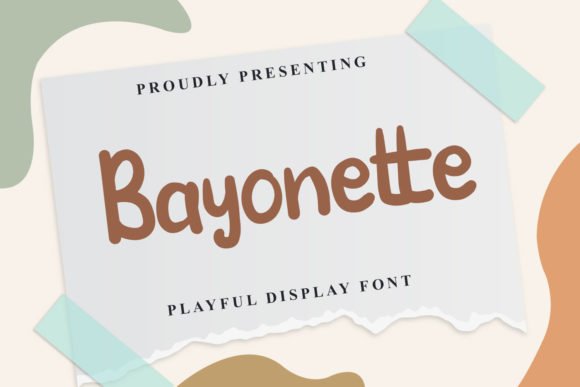
The Perfect Script: Discover the Magic of Bayonette Font
Enter Bayonette Font, a beautiful, flowing handwritten font that’s perfect for adding a touch of whimsy to your designs. With its adaptable nature, it’s sure to look great on a variety of projects, from social media graphics to wedding invitations. Whether you’re a seasoned designer or just starting out, Bayonette Font is a valuable addition to your toolkit.
What makes Bayonette Font truly special is its ability to add a friendly, approachable feel to any project. It’s the perfect choice for designers who want to create a sense of warmth and connection with their audience.
- Unique Characteristics: Bayonette Font features a unique blend of geometric and script elements, giving it a distinctive and stylish look.
Bayonette Font Review
Overall, I think the Bayonette font is a great addition to any designer’s toolkit. Here’s what works well for me:
- ✨ Unique style: The font’s bold, elegant design makes it perfect for titles and headings.
- ✨ Highly customizable: Bayonette comes in a variety of weights and styles, allowing designers to tailor the font to their specific needs.
- ✨ Versatile: It works well for both digital and print designs, making it a great choice for a wide range of projects.
- ⚠️ Limited legibility: In smaller sizes, the font can become difficult to read, making it less suitable for body text.
- ⚠️ Limited language support: Bayonette may not include support for non-Latin scripts, which could be a problem for designers working with global audiences.
Overall, I think the Bayonette font is a great choice for designers who want a bold, eye-catching font for their titles and headings. While it may have some limitations, its unique style and high level of customization make it a valuable addition to any designer’s toolkit.
Tips for Getting the Most Out of Bayonette Font
To get the most out of the Bayonette font, use it for titles, headings, and other prominent text elements. It’s also great for creating a unique and eye-catching visual identity for your brand or project.
The Bayonette font is commonly used for:
– Titles and headings
– Promotional materials